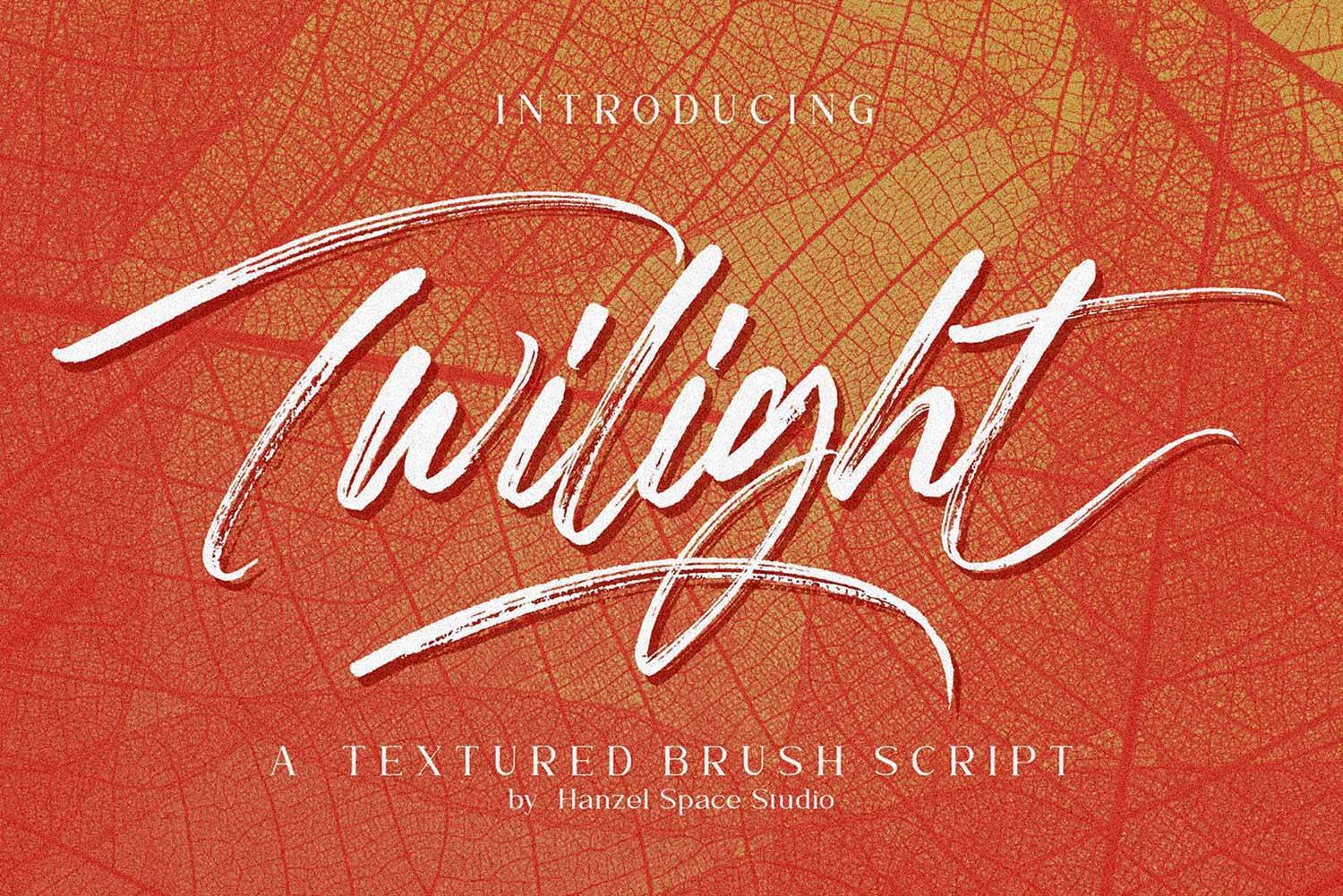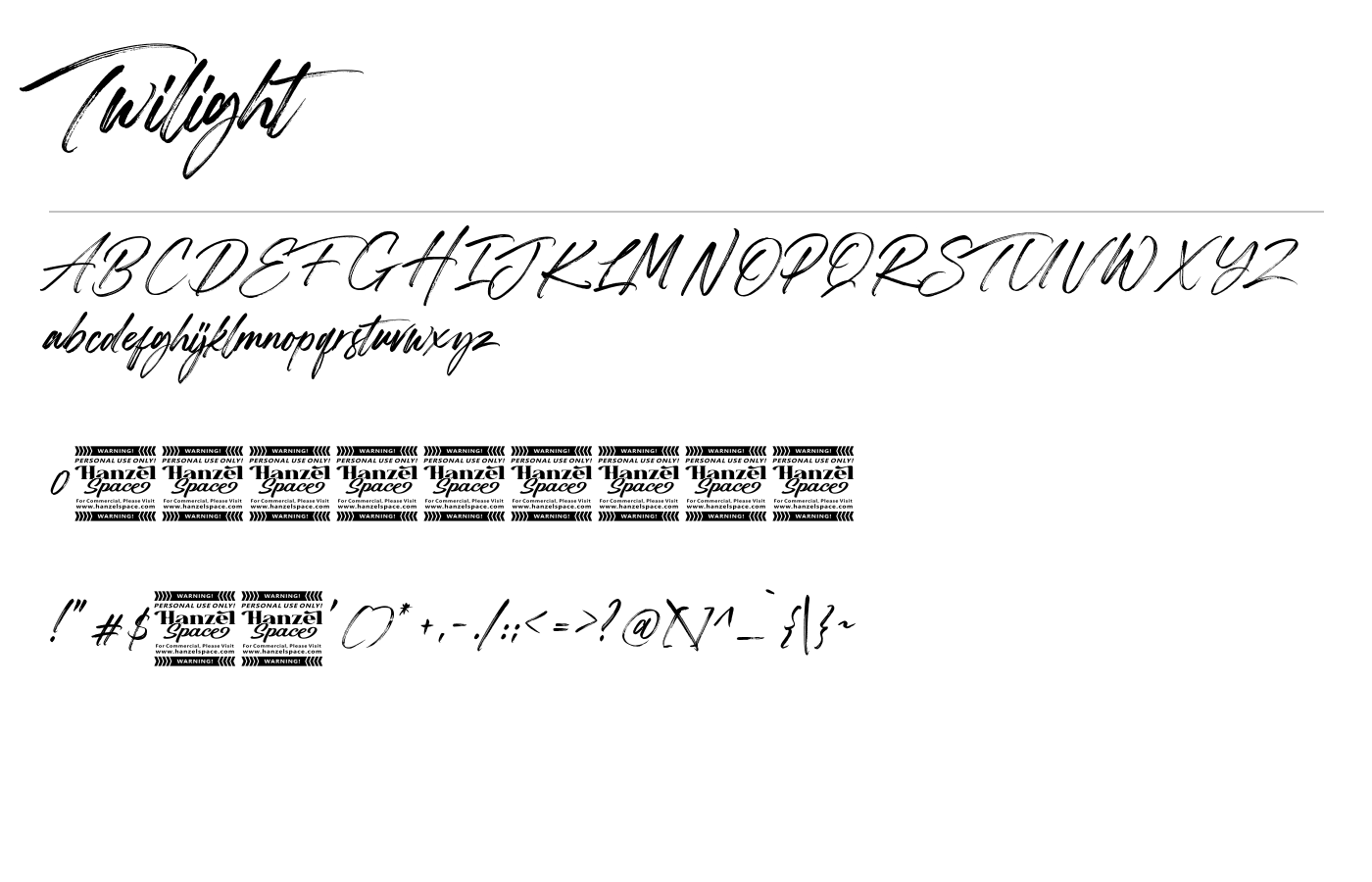
Twilight Font is an elegant, flowing script typeface with a hand-brushed, cursive style that exudes a modern and artistic vibe. Its dynamic strokes and natural, slightly irregular letterforms make it perfect for creative branding, invitations, and headlines where a personal, sophisticated touch is desired. This font works beautifully in fashion, lifestyle, and luxury design contexts, adding a graceful and expressive character to any project.
Twilight Font
About Twilight Font
| Font family | Twilight Font |
| Designer | Hanief Farandi |